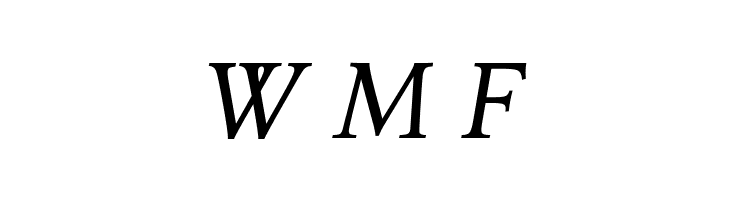
Kelvinch Bold Font
A bold serif font with strong strokes and a classic yet modern appeal.
Kelvinch Font
A classic serif font with elegant strokes and subtle contrast.
Kelvinch Italic Font
An elegant italic serif font with smooth curves and a classic style.
Kelvinch Bold Italic Font
A bold, italic serif font with a classic and elegant style.